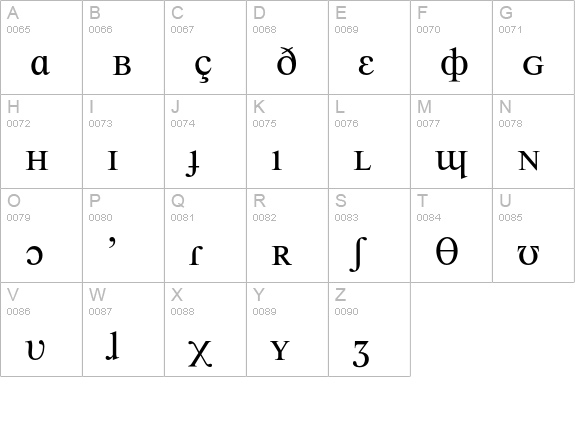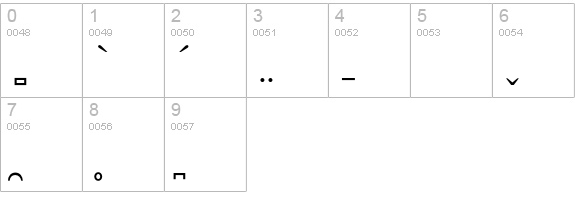
PT Newton Phonetic Font Details
The PT Newton Phonetic font is an exceptional typographic masterpiece that combines elegance, clarity, and functionality. This font is meticulously crafted to enhance the legibility of phonetic symbols, making it an indispensable tool for linguists, language enthusiasts, and professionals in the field. With its sleek and modern design, PT Newton Phonetic allows for easy distinction and recognition of phonetic characters, ensuring the accurate representation of speech sounds. Each symbol is thoughtfully designed, creating a harmonious and visually pleasing experience for readers. What sets PT Newton Phonetic apart is not only its exceptional design but also its accessibility. This font is freely available to download at FontsMarket.com, making it easily accessible to anyone in need of a reliable and visually appealing phonetic font. Whether you are working on research papers, language teaching materials, or any project that requires the accurate representation of phonetic symbols, PT Newton Phonetic is the ideal choice. Its clean lines, balanced proportions, and attention to detail make it the perfect companion for any linguistic endeavor. Download PT Newton Phonetic for free at FontsMarket.com and elevate your typographic experience. Experience the ease and beauty of representing phonetic characters with this premium font, designed to enhance clarity and readability. With PT Newton Phonetic, your linguistic projects will come to life, leaving a lasting impression on readers and ensuring the accurate representation of speech sounds.